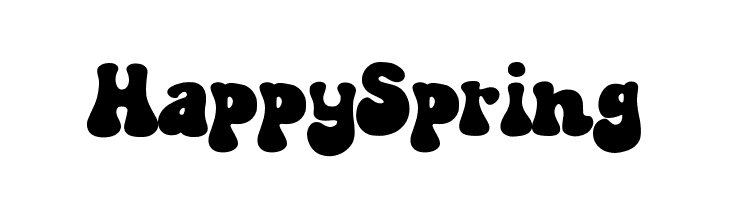
A bold, expressive script font with fluid, dynamic strokes.
( Fonts by Lettering Mom )
Elegant handwritten script font.
( Fonts by UI Creative )
A bold, distressed font with a vintage, rugged appearance.
A whimsical, elegant handwritten font with playful curves and loops.
( Fonts by Dieter Steffmann )
A traditional Blackletter font with bold, angular strokes and ornate details.
( Fonts by Dieter Steffmann )
A bold, slab serif font with a vintage yet modern appeal, ideal for headlines.
( Fonts by Dieter Steffmann )
A bold, shadowed font with a classic serif touch, perfect for impactful headlines.
( Kautsar Rahadi - dribbble.com/kautsarrahadi )
A bold, geometric font with strong lines and uniform height.
( Kautsar Rahadi - dribbble.com/kautsarrahadi )
A bold, rough-textured font with a vintage, handcrafted feel.
A playful, bold font with rounded edges and a hand-drawn look.